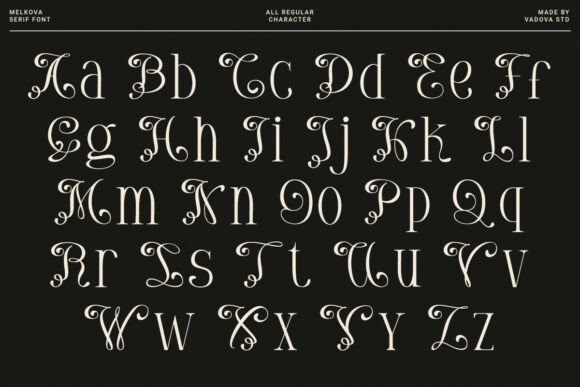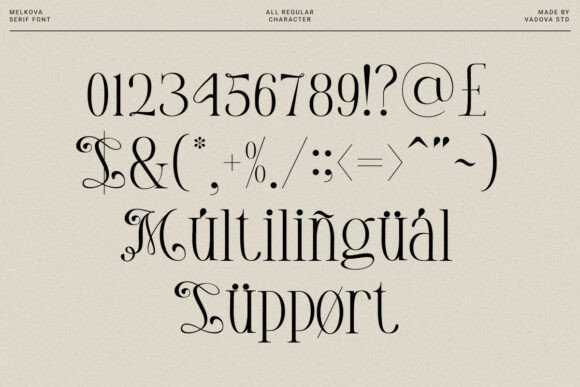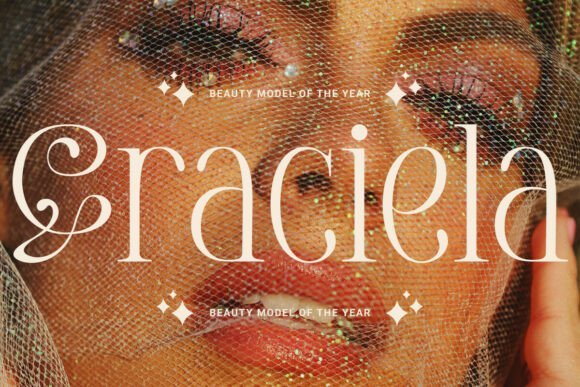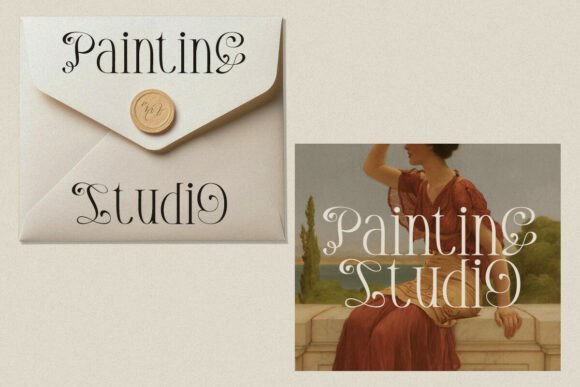
Melkova Font
Melkova is a stylish serif font with decorative curves and refined classical details that create an elegant and timeless character. The letterforms feature graceful terminals and balanced proportions, giving the font a luxurious and sophisticated presence. Its ornamental touches add personality without losing readability, making it suitable for expressive display use. Melkova blends vintage charm with a modern serif structure for refined visual storytelling.